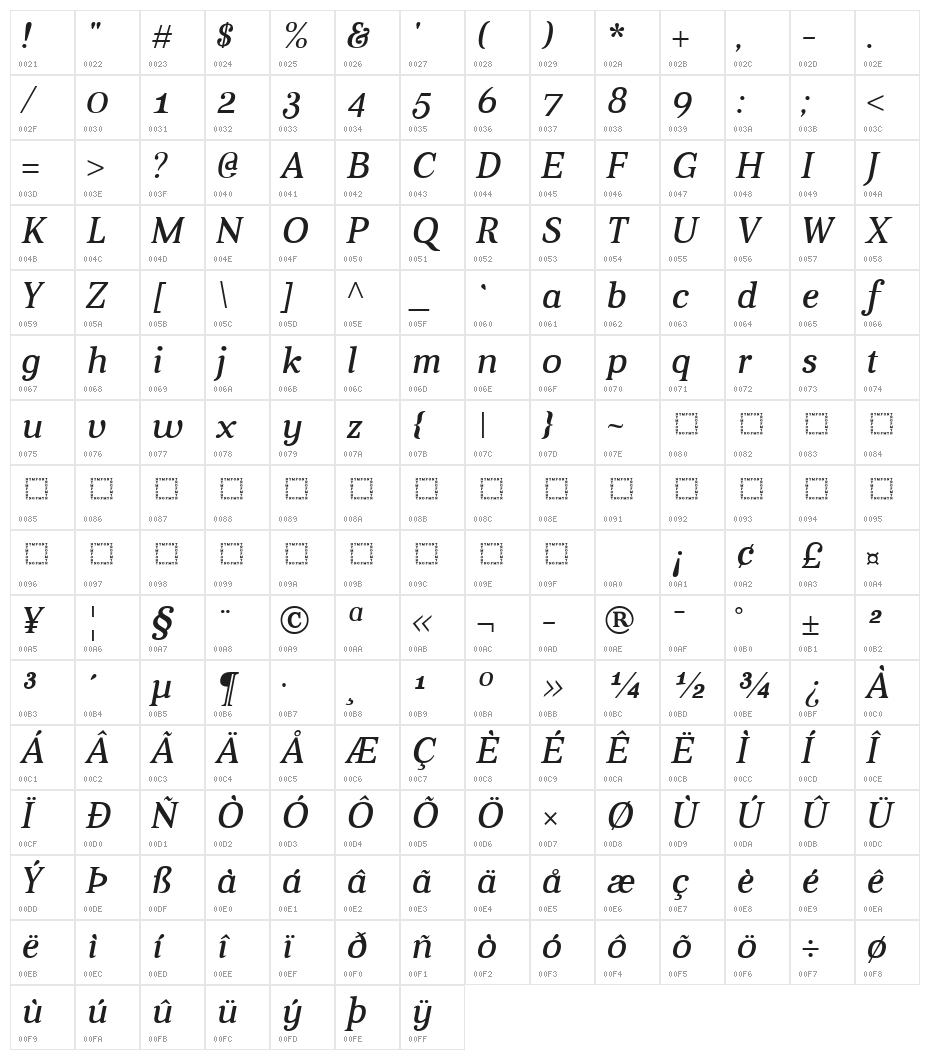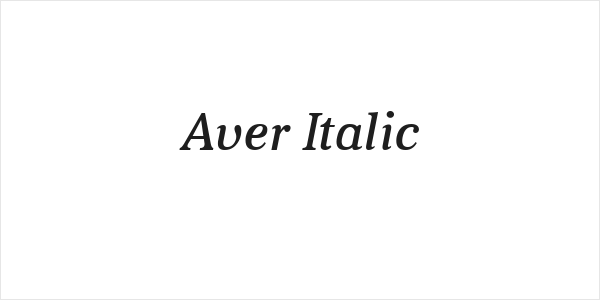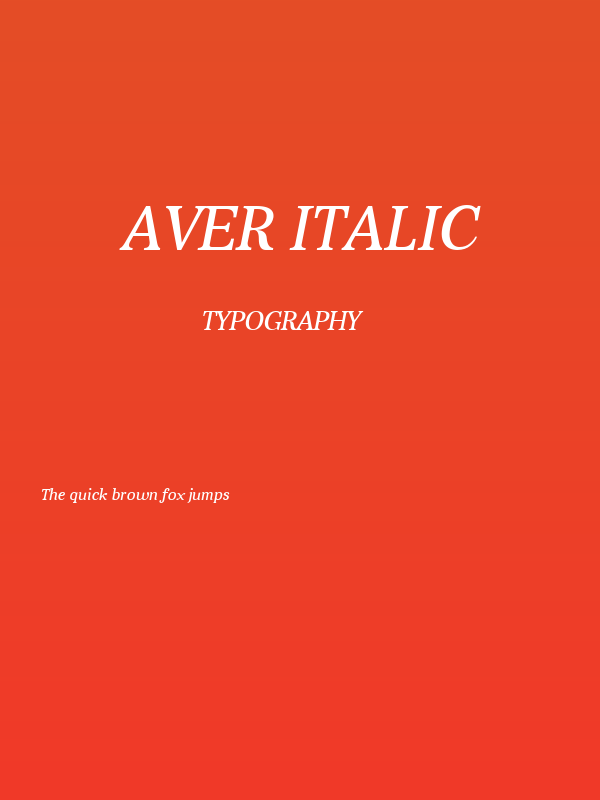
Aver Italic Font
Aver Italic Description
This typeface exhibits a classic elegance with its italicized form, characterized by smooth, flowing lines and a slight slant that adds a sense of motion and sophistication. The serifs are pronounced yet refined, providing a traditional touch that enhances readability. The uppercase letters are well-proportioned, while the lowercase letters maintain a consistent style that complements the overall aesthetic. The numerals are clear and distinct, ensuring legibility across various applications. Special characters are thoughtfully designed, maintaining the font's cohesive appearance.
| Proposed Projects | Ideal for formal invitations, elegant branding, editorial design, and sophisticated packaging. |